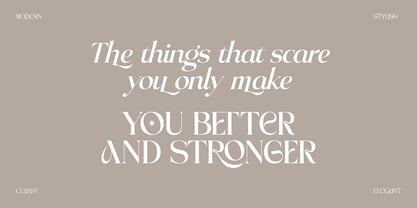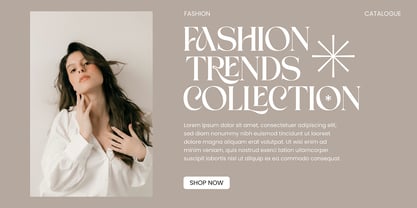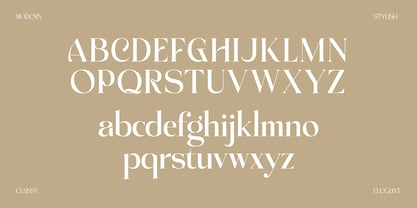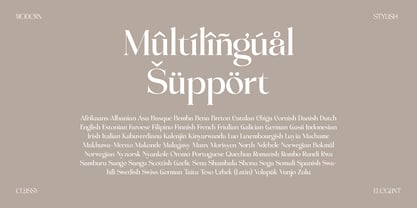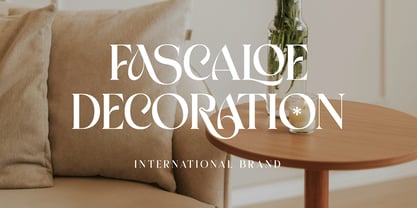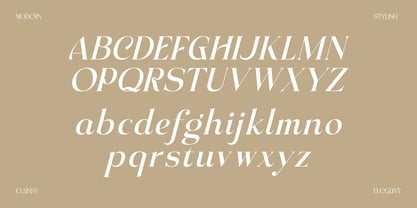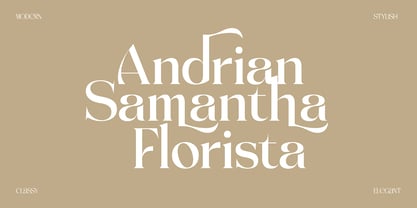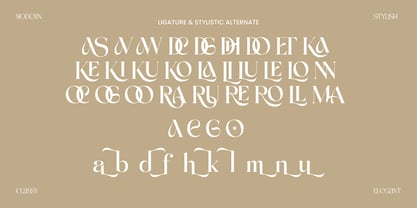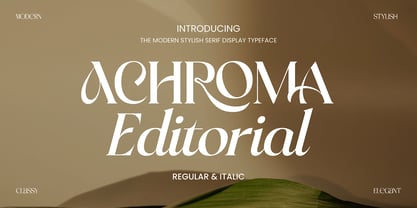
Achroma Editorial
by Mega Type
The Achroma Editorial Font Family was designed by M Akmal and published by Mega Type. Achroma Editorial contains 2 styles and family package options.
Achroma Editorial is a modern serif display typeface that blends refined elegance with confident, contemporary character. Its letterforms feature high-contrast strokes, sculpted curves, and expressive terminals that feel both graceful and intentional. The font balances classic editorial sophistication with a fresh, stylish edge, making it visually striking without feeling overly ornate. Available in regular and italic styles, Achroma Editorial excels at creating hierarchy and mood, best suited for projects such as Fashion magazines, editorials, luxury branding, visual identities, beauty, lifestyle, wellness brands, high-end packaging, product labels, book covers, magazine covers, headlines, wedding designs, invitations, and elegant social media graphics. Achroma Editorial shines most when used for headlines, titles, and display text—anywhere you want typography to make a strong, stylish first impression. Have fun using Achroma Editorial!!! Thank you very much, Megatype.